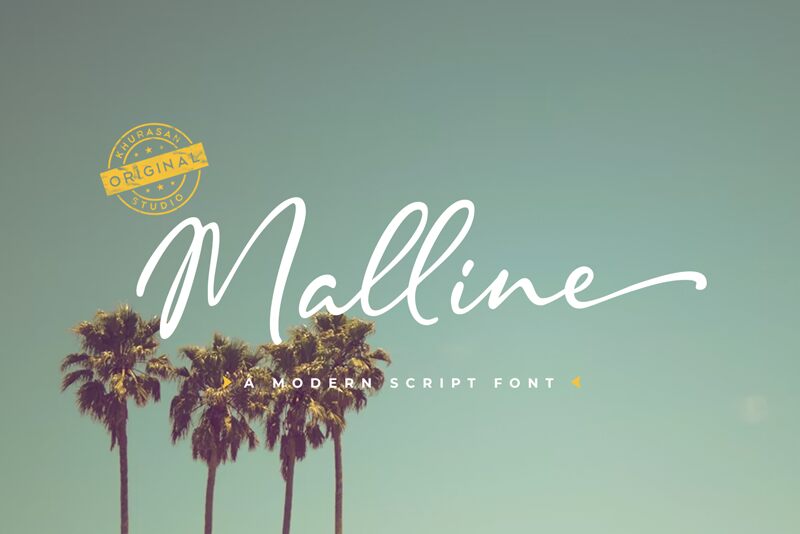
Malline font family by Khurasan™ is a free handwritten font that contains 2 font styles. It is characterized by a flowing, elegant, and modern appearance that gives it a smooth and expressive finish. That being said, Malline is suitable for projects requiring sophisticated typography with style.
Its refined and airy design can easily be the highlight of your branding or promotional visual content. Make use of this font family in invitations, greeting cards, social media graphics, brochures, advertisements, logos, packaging, labels, t-shirts, and typography artwork.